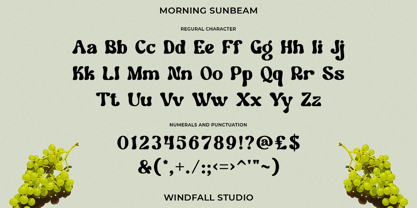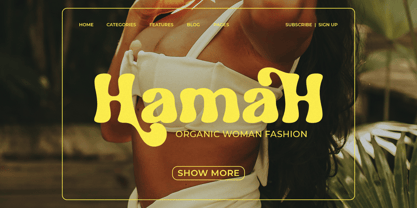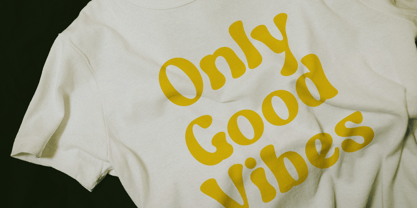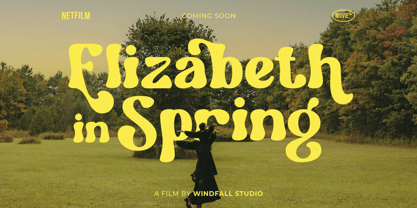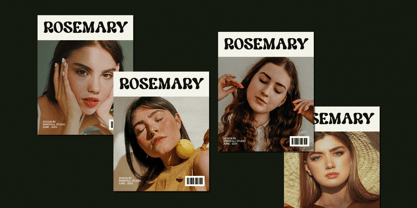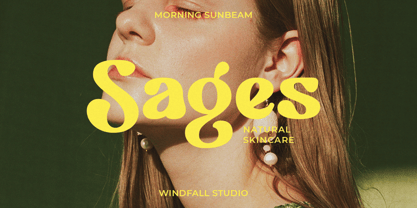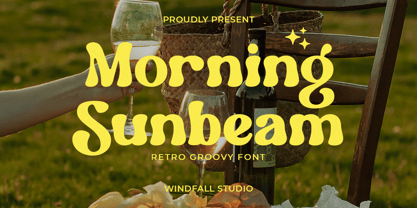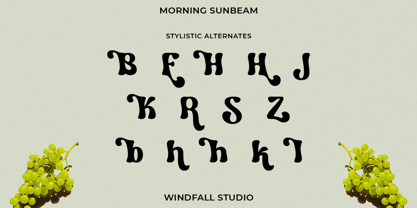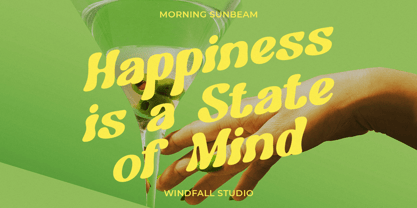
Morning Sunbeam
by Windfall Studio
The Morning Sunbeam Font Family was designed by Anggia Putri Premitasari and published by Windfall Studio. Morning Sunbeam contains 1 styles. More about this family
Morning Sunbeam - Retro Font
Morning Sunbeam - Retro Font With roots in the luxurious details of the Art Nouveau movement and bold flourishes found in psychedelic culture, you're sure to capture vintage magic with this new retro font.
Plus, we built this font using OpenType features so it automatically adjusts to fit perfectly within your design layout. No fussing around with tracking values or kerning pairs needed!
Designers: Anggia Putri Premitasari
Foundry: Windfall Studio